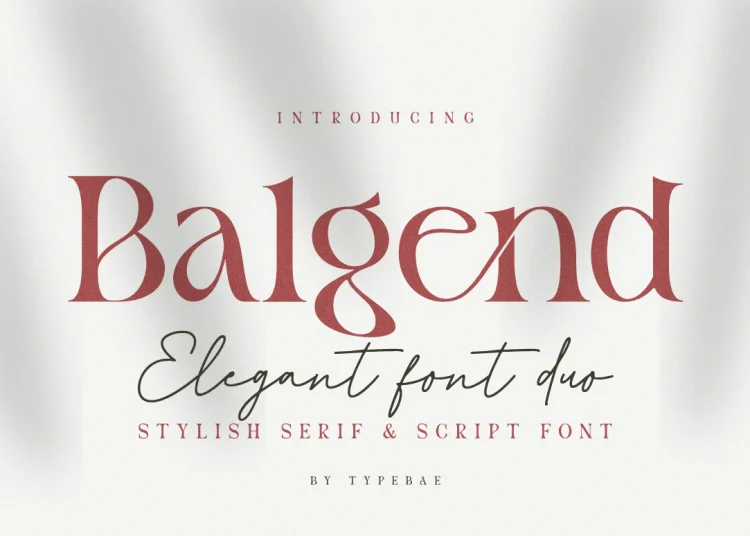
Balgend Font
Balgend is a striking font duo that seamlessly merges modern script with classic serif elements. Designed for those who appreciate both elegance and creativity, this versatile typeface brings sophistication and charm to any project. Whether you’re working on branding, invitations, packaging, or editorial designs, Balgend’s balanced contrast makes it a standout choice.
The font pair offers the best of both worlds—graceful, flowing script for a personal touch and bold, structured serifs for a timeless appeal. This combination ensures versatility, making it ideal for everything from logo design to high-end typography.